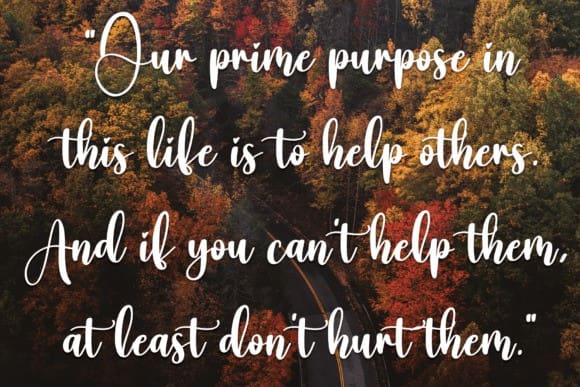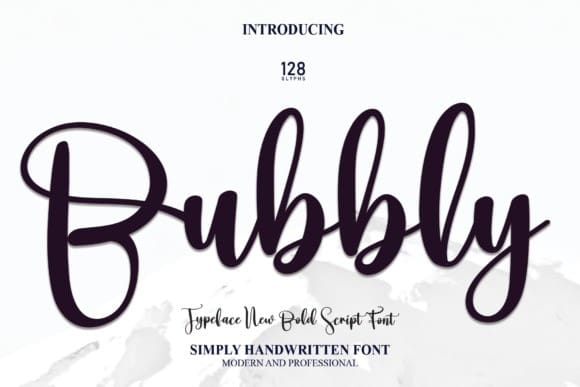
Bubbly Script Font
Bubbly Script Font, This font’s latest style letters are perfect for wall displays, wedding invitations, social media post logos, advertisements, product packaging, product designs, labels, photography, watermarks, invitations, stationery, and any project that requires a handwritten taste.